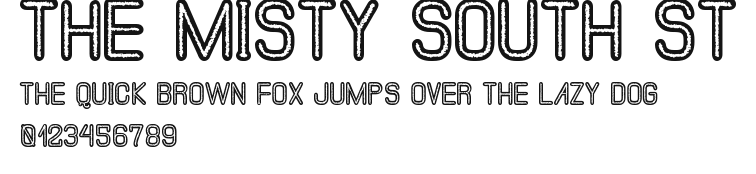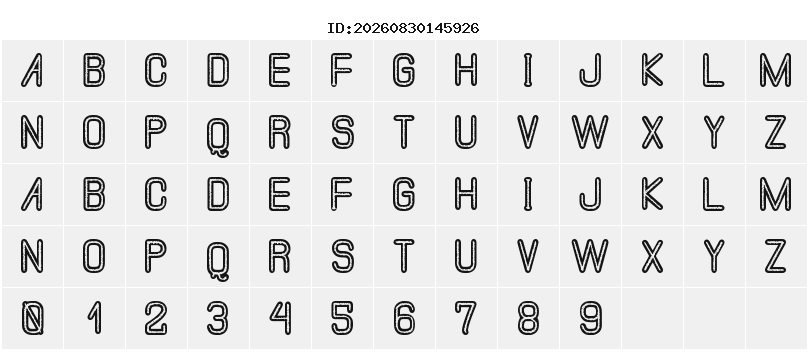
The Misty South St Preview
• Font Name: The Misty South St
• Full Font Name: The Misty South St
• Designer: This font is an original work of southype dot com
About The Misty South St.ttf
The Misty South St.ttf is a modern, elegant sans-serif font designed for ultimate readability and visual harmony. Perfect for branding, headlines, web design, and print materials.